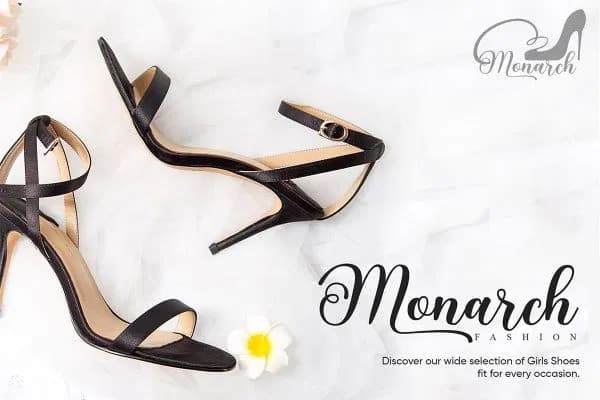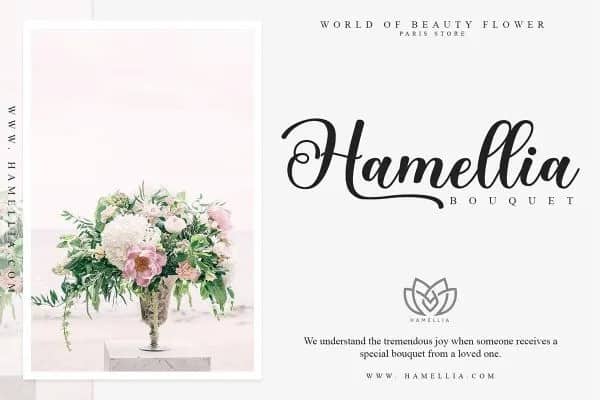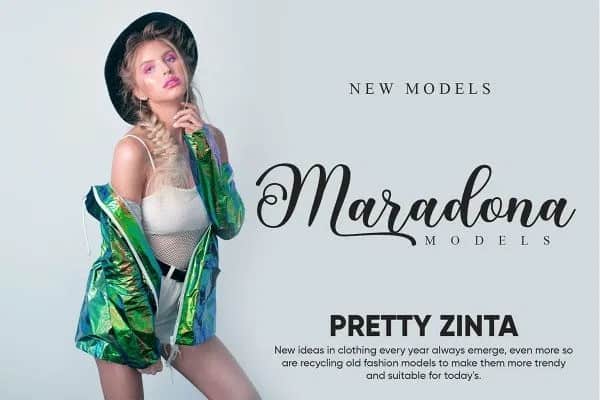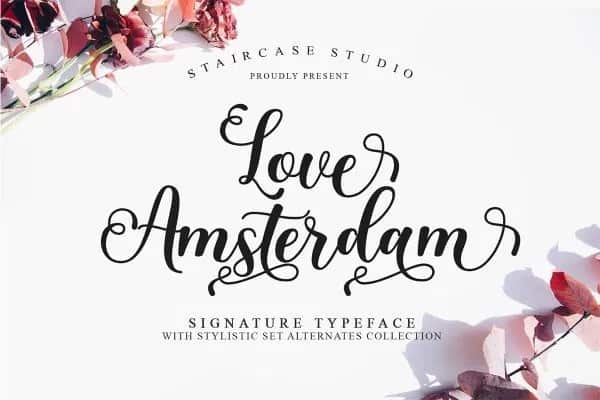
Love Amsterdam Calligraphy Font
Introducing Love Amsterdam Calligraphy Font, a new elegant modern script font. a lovely, elegant and sweet script font. This font is designed and shared by Staircase Studio. A collection of letters and numbers suitable your projects also great for Logotype, Branding Design, Logo Design, Digital Lettering Arts, T-Shirt/Apparel, Poster, Magazine, Signs, Advertising Design, and any design needs.